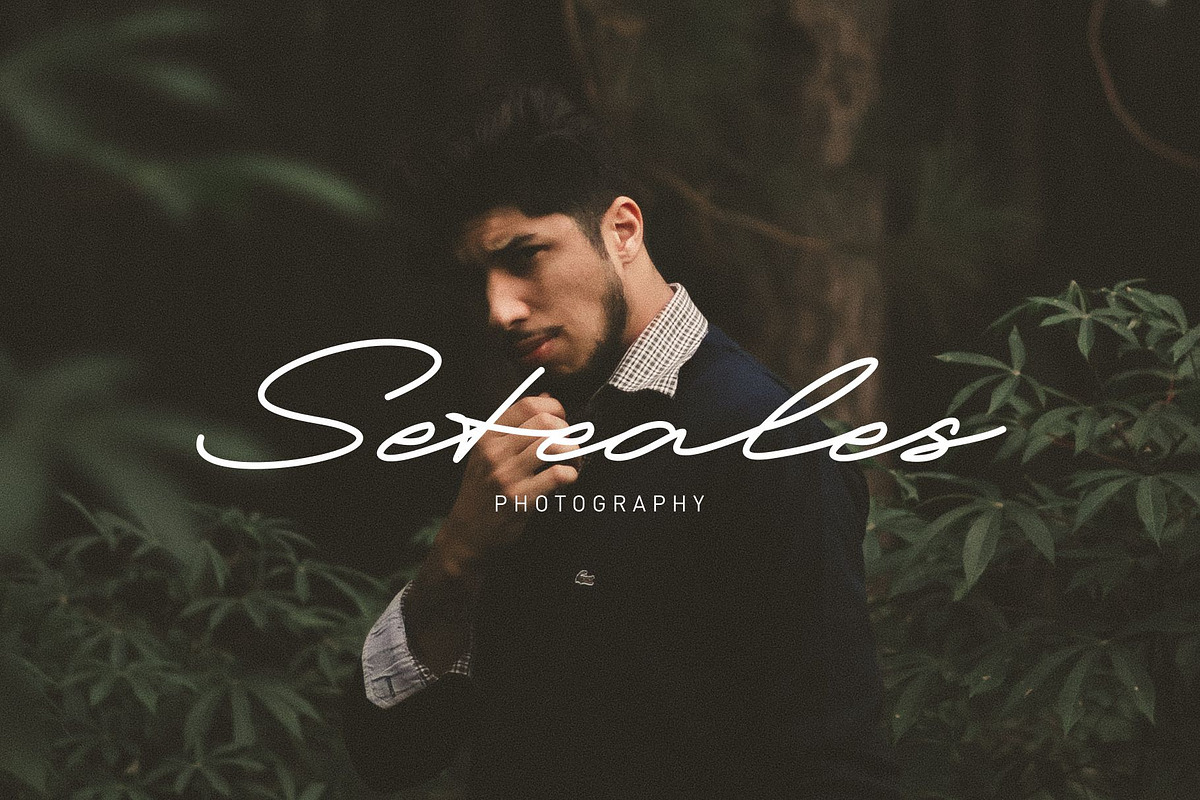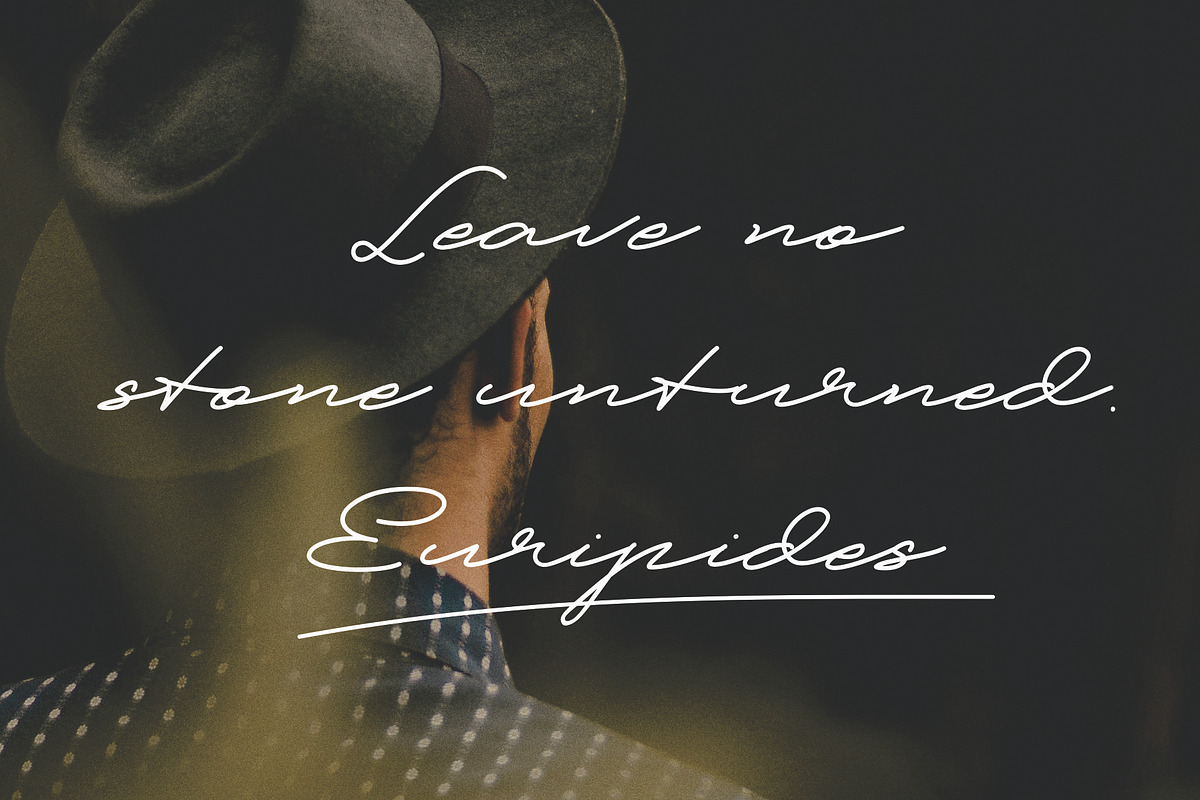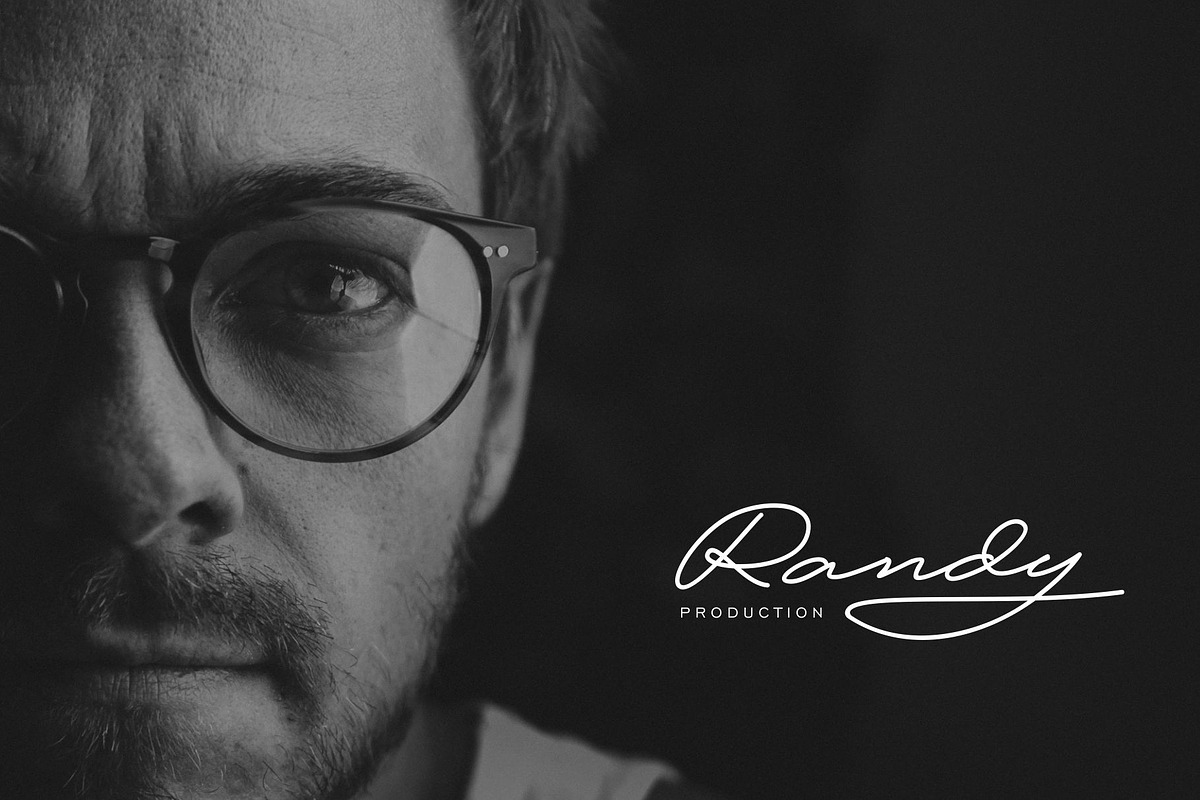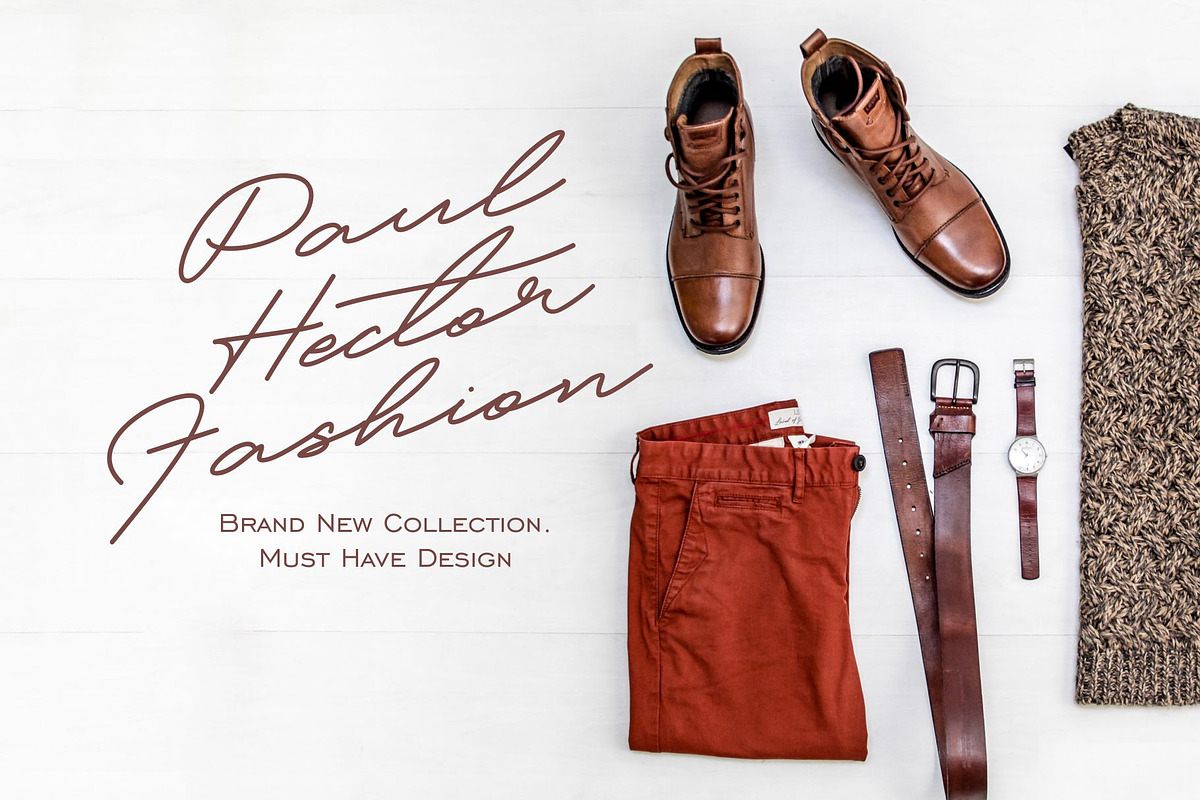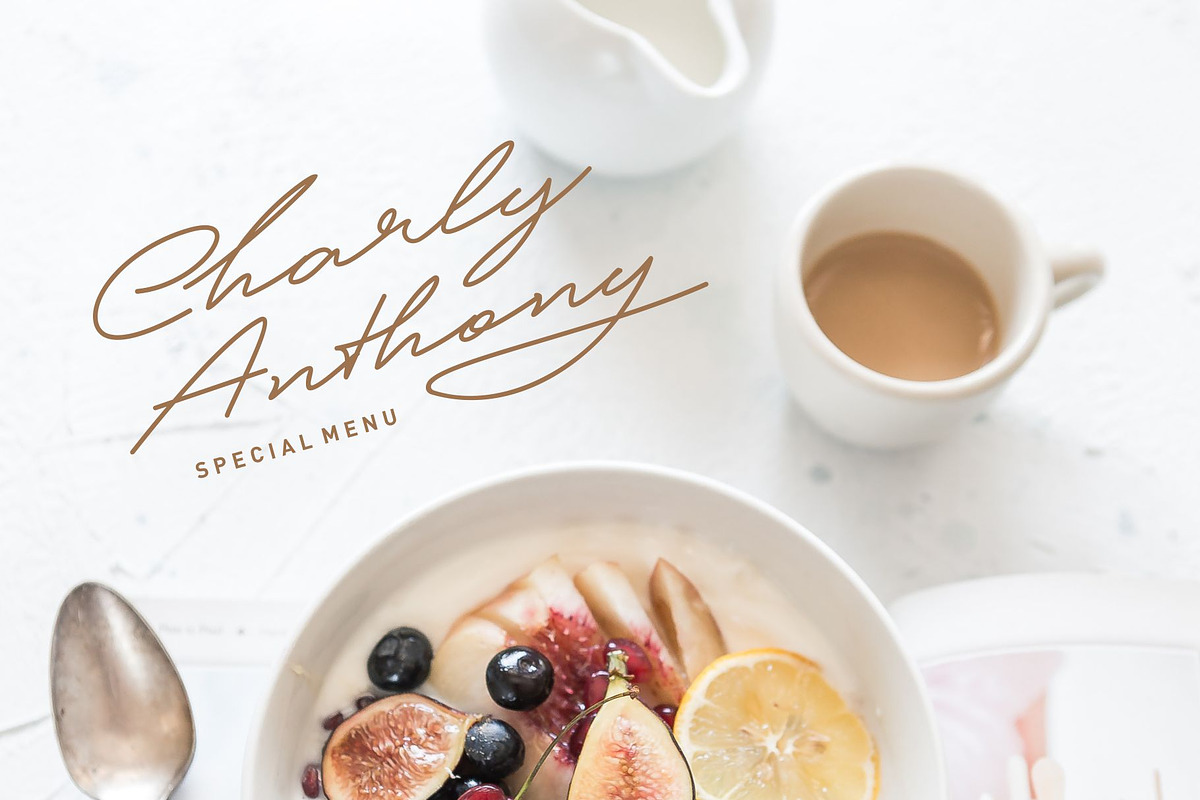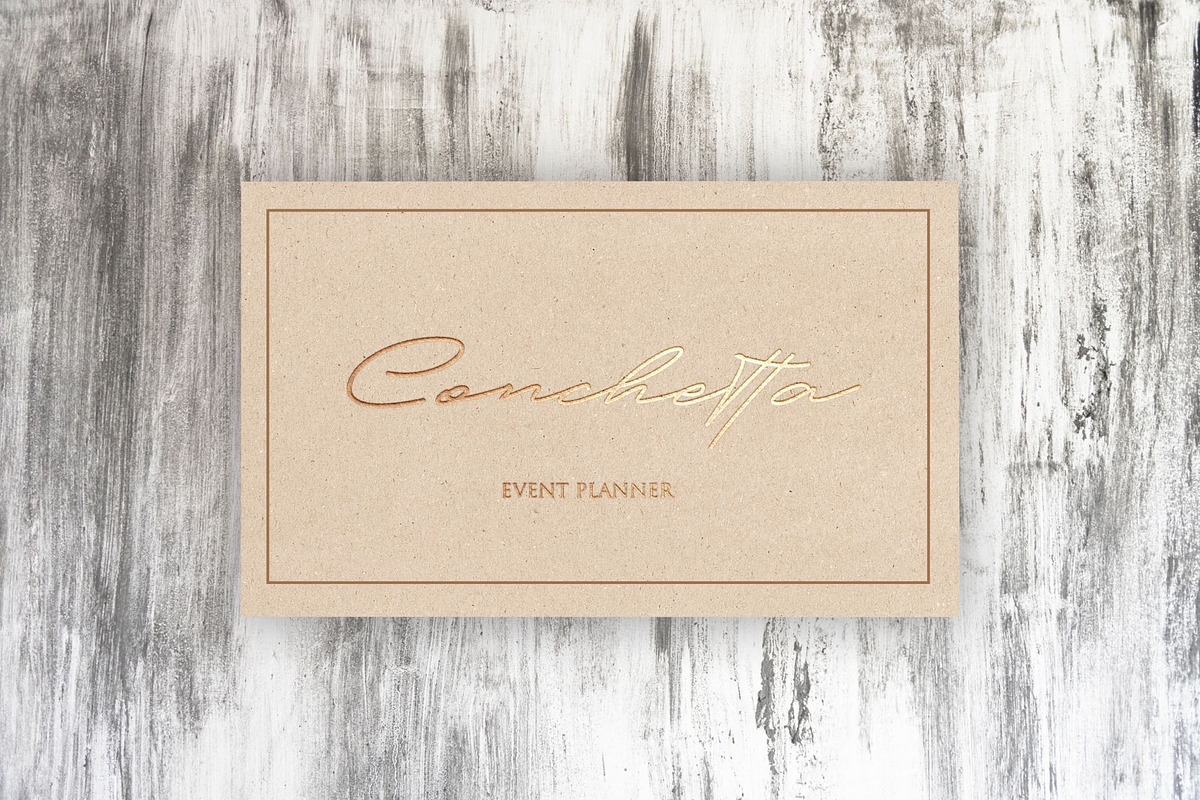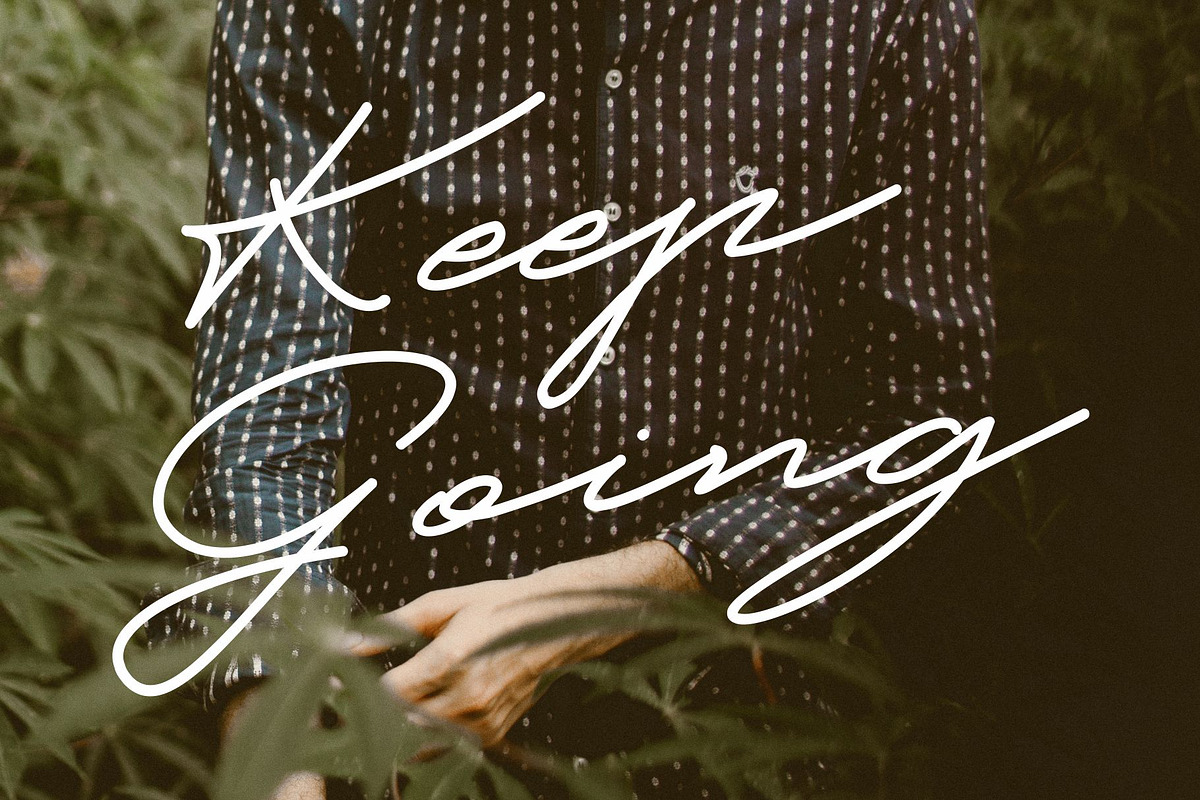
Patton Delicate Signature Typeface
Introducing our new handwritten typeface, Patton.
This signature-like typeface is most suitable for adding a personal touch to your signage, logo, or other design project yet still legible. This modern and simple typeface comes in uppercase, lowercase, numerals, and punctuation marks.
- Features : Ligatures and alternate